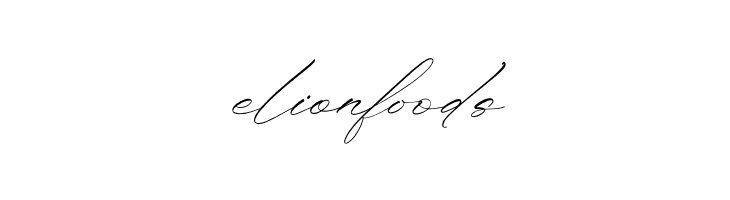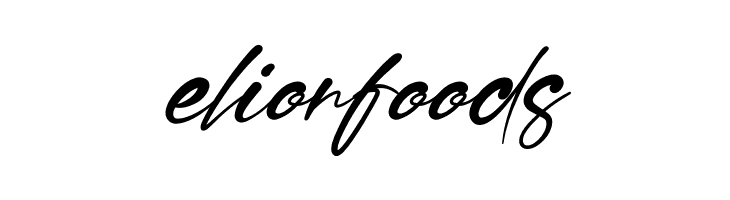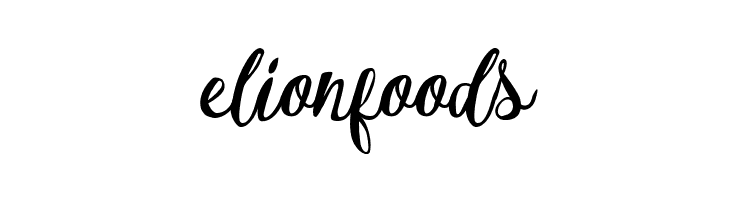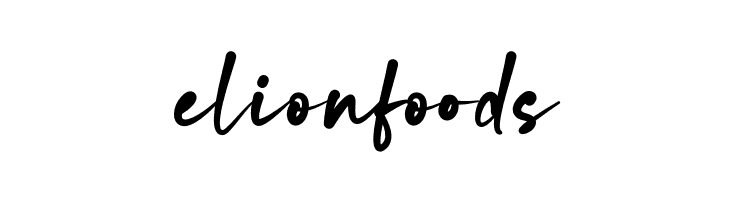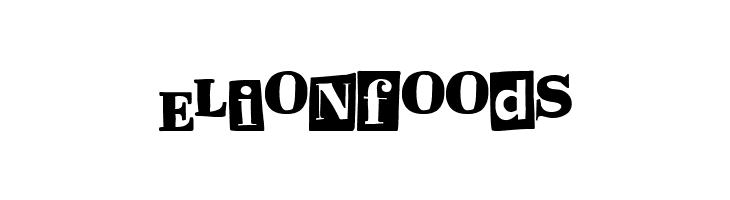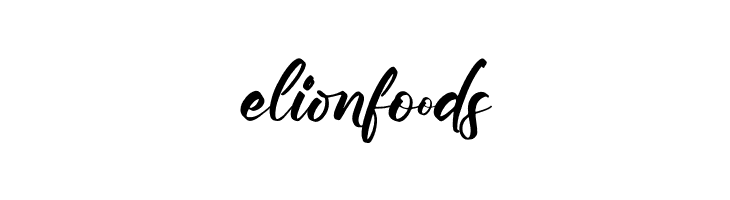
( Fonts by Storytype Studio )
An elegant, cursive script font with flowing lines and ornate flourishes.
( Fonts by Gede Sugiantara )
A fluid, elegant handwritten font with smooth, connected strokes.
A lively and dynamic handwritten font with fluid, cursive strokes.
( Fonts by Sheilla Fristella )
A playful, bold handwritten font with rounded, consistent strokes.
( Fonts by scratchones )
A flowing, cursive font with elegant loops and a handwritten style.
( Fonts by Ianmikraz )
A graceful script font with flowing, cursive strokes and elegant flourishes.
( Fonts by RantautypeStudio )
A lively and dynamic script font with fluid, cursive strokes.
( Fonts by Faqih Fawaji )
A cursive, handwritten font with elegant, flowing strokes.
A bold, punk-inspired font with a cut-out, eclectic style.
( Fonts by Letterena Studios )
A sophisticated cursive font with elegant, flowing strokes.